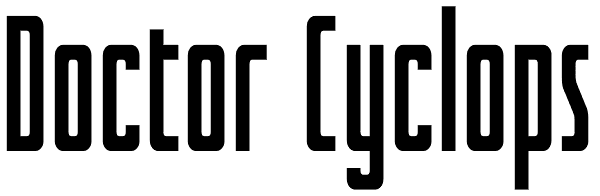
Doctor Cyclops
Doctor Cyclops, tall, thin, and strong, sits in his laboratory, plotting evil scientific deeds. The villagers, torches in hand, have gathered again at the base of his stone tower, shouting loudly, and breaking his concentration. "Igor!" he calls out...
Doctor Cyclops
Doctor Cyclops Italic